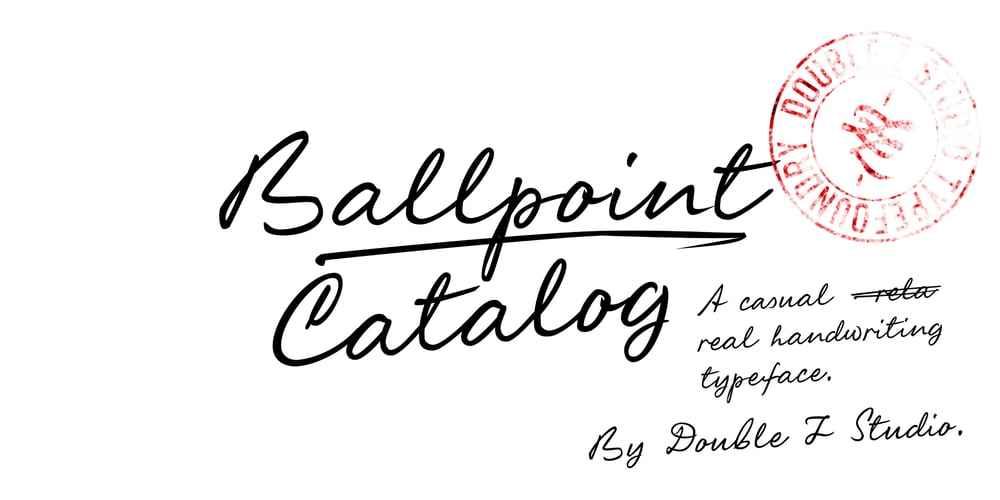
Ballpoint Catalog Font Family was designed by Ahmad Zakiy and published by Double Z Studio. Ballpoint Catalog contains 1 styles and family package options. Ballpoint Catalog is a handwriting typeface, based on my dad’s real handwriting, he was a teacher. I’m amaze by its smoothness and elegant, not fully follow the rules of penmanship handwriting but he has his own style of script which make it more human, natural handwriting rather that ‘generic’ handwriting typeface style.This typeface contain several ligatures to make it more natural in the writing. Suitable for any uses from branding, book cover, menu, quotes, invitation, wedding cards, advertising, blog, etc.Features Latin A-Z and a-z Numbers Symbols Ligature To enable the OpenType Stylistic alternates, you need a program that supports OpenType features such as Adobe Illustrator CS, Adobe Indesign & CorelDraw X6-X7.There are additional ways to access alternates/swashes, using Character Map (Windows), Nexus Font (Windows), Font Book (Mac) or a software program such as PopChar (for Windows and Mac).